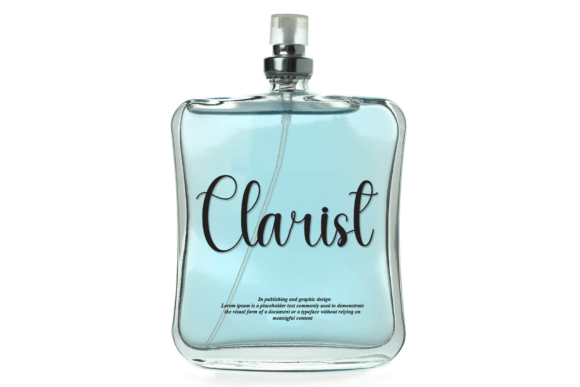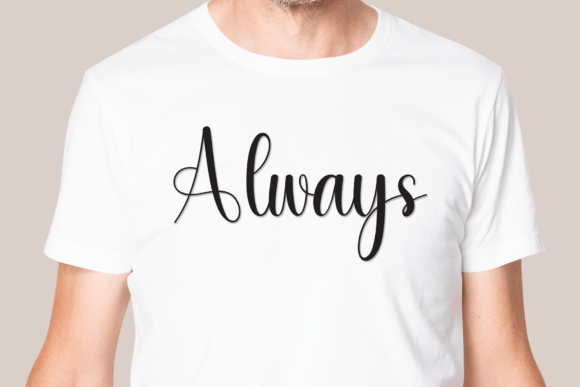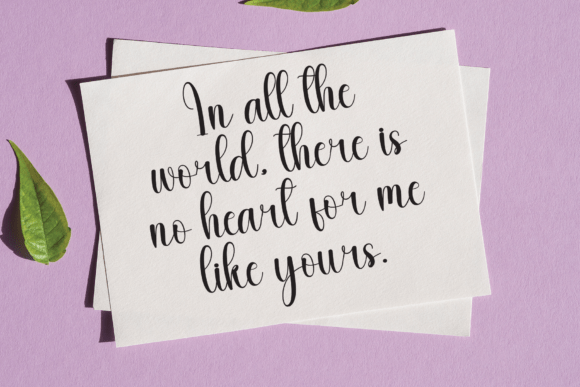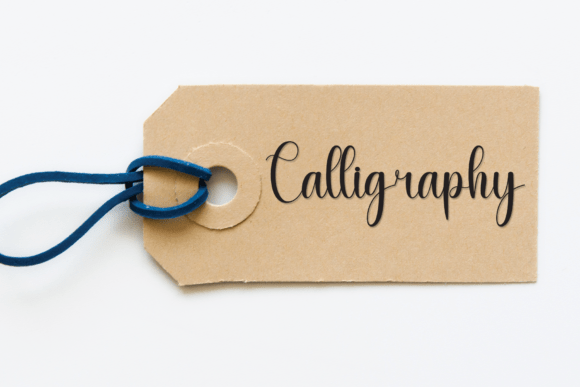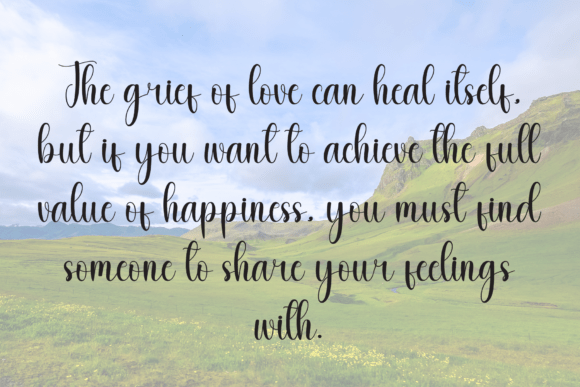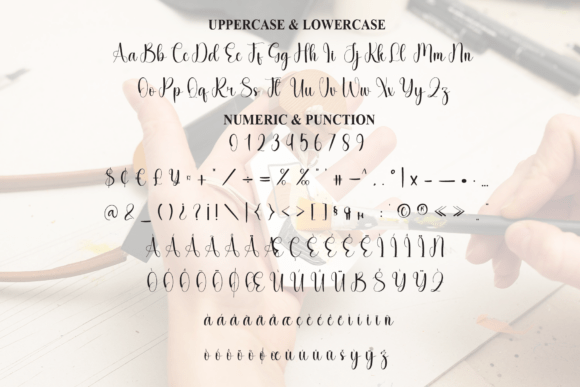
Crafting Font: Where Whimsy Meets Sophistication
In the world of typography, fonts can evoke emotions, convey personalities, and make or break the aesthetic of a design. For designers and crafters looking to add a touch of friendliness and whimsy to their creations, our handwritten display font, Crafting Font, is the perfect solution. This adorable font is designed to effortlessly radiate sweet friendliness, making it an ideal choice for wedding invitations, greeting cards, and other designs that crave a sprinkle of fun.
The Charm of Handwritten Typography
Handwritten fonts have a unique ability to add a personal touch to any design. They evoke a sense of warmth, approachability, and informality, making them perfect for designs that require a human touch. Our Crafting Font takes this to the next level with its delightful whimsy and playful charm. Each letter is carefully crafted to exude a sense of fun and lightheartedness, making it an excellent choice for designers and crafters who want to inject some personality into their work.
Amalgamation of Fun and Sophistication
What sets Crafting Font apart is its unique blend of fun and sophistication. While it’s playful and whimsical, it’s also elegant and refined, making it suitable for a wide range of design applications. Whether you’re creating wedding invitations, branding materials, or greeting cards, this font is sure to add a touch of personality and whimsy to your designs. The amalgamation of fun and sophistication in typeface is a rare find, and Crafting Font delivers just that.
Wedding invitations and greeting cards are special occasions that require a font that’s both elegant and playful. Crafting Font is designed to breathe life into these designs, adding a sprinkle of fun and whimsy that’s sure to delight. The font’s sweet friendliness and lighthearted enjoyment make it perfect for conveying the joy and excitement of special occasions. Whether you’re a designer or crafter, this font is sure to become your go-to choice for creating beautiful and memorable designs.
Easy to Use and Customize
One of the best things about Crafting Font is its ease of use. This font is designed to be user-friendly, making it easy to inject lighthearted enjoyment and a personal touch into your artistic creations. With its clean and simple design, you can easily customize the font to suit your needs, whether you’re creating digital designs or printing physical materials.
So, what are the benefits of using Crafting Font for designers and crafters? Here are just a few:
- Add a personal touch: With Crafting Font, you can add a personal touch to your designs, making them more relatable and engaging.
- Evoke emotions: This font is designed to evoke emotions and convey personality, making it perfect for designs that require a human touch.
- Stand out from the crowd: With its unique blend of fun and sophistication, Crafting Font is sure to make your designs stand out from the crowd.
- Easy to use: This font is designed to be user-friendly, making it easy to customize and use in a variety of design applications.
In conclusion, Crafting Font is a unique and versatile font that’s perfect for designers and crafters looking to add a touch of whimsy and friendliness to their designs. With its delightful charm, sweet friendliness, and lighthearted enjoyment, this font is sure to breathe life into wedding invitations, greeting cards, and other designs. Whether you’re a seasoned designer or a crafter looking for a new font to add to your arsenal, Crafting Font is an excellent choice. So why not give it a try and see the magic for yourself?
Get Ready to Fall in Love with Crafting Font
With its adorable charm and playful personality, Crafting Font is sure to capture your heart. Whether you’re creating special occasion designs or just want to add a touch of whimsy to your everyday designs, this font is sure to delight. So, get ready to fall in love with Crafting Font and discover the perfect blend of fun and sophistication in typeface.